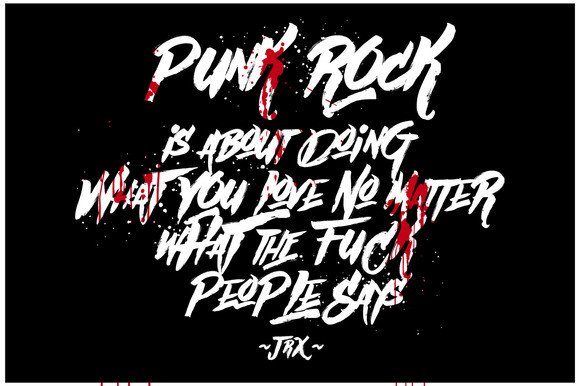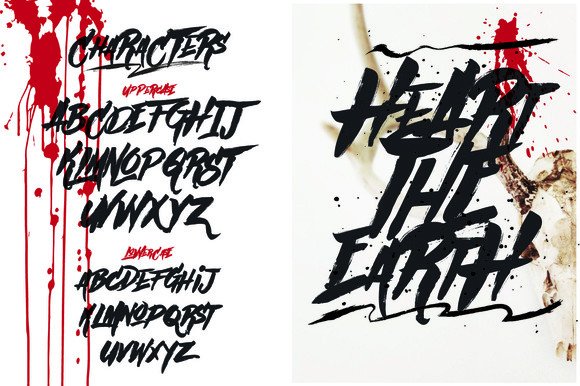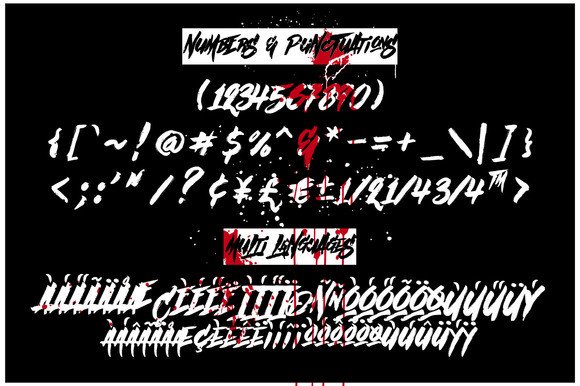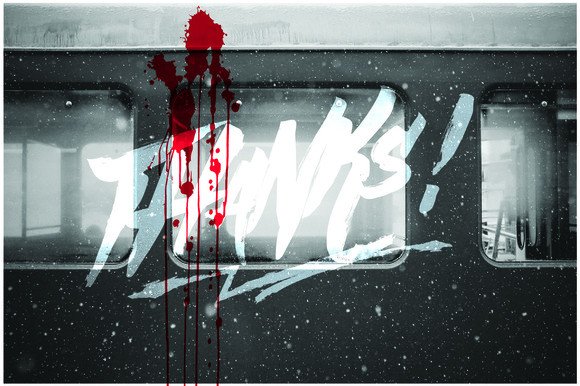
When Design Meets Macabre: Unleashing the Horror Joys Font
Have you ever found yourself stuck in a creative rut, desperately searching for that perfect font to elevate your design? You know, that moment when you’re scrolling through font libraries, and suddenly, something catches your eye. For designers, it’s that ‘aha’ moment that sparks inspiration and sets the tone for a project. It’s a moment that I’m sure many of you can relate to.
Enter the Horror Joys Font, a unique and captivating handwritten font that adds a touch of whimsy and charm to any design. With its splattered and textured appeal, this font is perfect for designers looking to give their work a unique twist. The Horror Joys Font is a great way to inject some personality into your designs, making it a valuable asset for any creative project.
Horror Joys Font Key Features
- Font Family: Horror Joys Font is a unique, horror-themed font designed for various uses, including horror movies, video games, and fiction writing.
- Unique Characteristics: The font features a distressed, horror-themed aesthetic with unique letterforms and ornate details, making it perfect for creating a spooky atmosphere.
Horror Joys Font Review
As a designer, I was excited to dive into the Horror Joys Font. At first glance, I was drawn to its unique blend of spooky and playful elements ✨. The font’s eerie feel and eclectic mix of characters evoke a sense of unease, perfect for horror-themed projects or campaigns.
The font’s versatility is one of its strongest points. It can be used for titles, headings, and even body text, making it a great option for designers looking for a font that can adapt to various design styles ✨. The font also includes a range of special characters, from creepy symbols to abstract designs, which can add an extra layer of depth to your designs.
While the Horror Joys Font is a great option for horror-themed projects, it may not be the best choice for more serious or corporate designs ⚠️. The font’s playful and spooky elements may come across as unprofessional in certain contexts. Additionally, the font’s character set is limited, which may make it less suitable for long-form text or projects that require a wide range of characters ⚠️.
Overall, I think the Horror Joys Font is a great addition to any designer’s toolkit, especially for horror-themed projects or campaigns. While it may have some limitations, its unique blend of spooky and playful elements makes it a standout option for designers looking to add some personality to their designs.
Horror Joys Font is perfect for creating spooky and eerie designs. Some common use cases include:
- Creating Halloween-themed posters and invitations.
- Designing horror movie titles and taglines.
- Adding a spooky touch to your social media graphics.